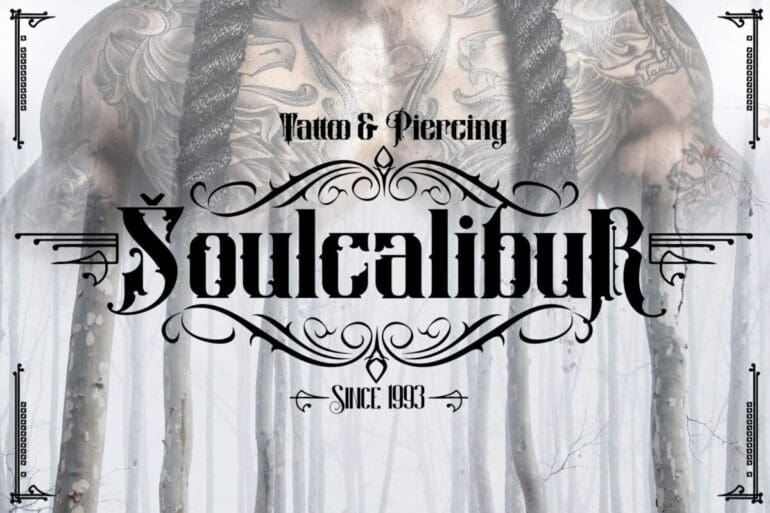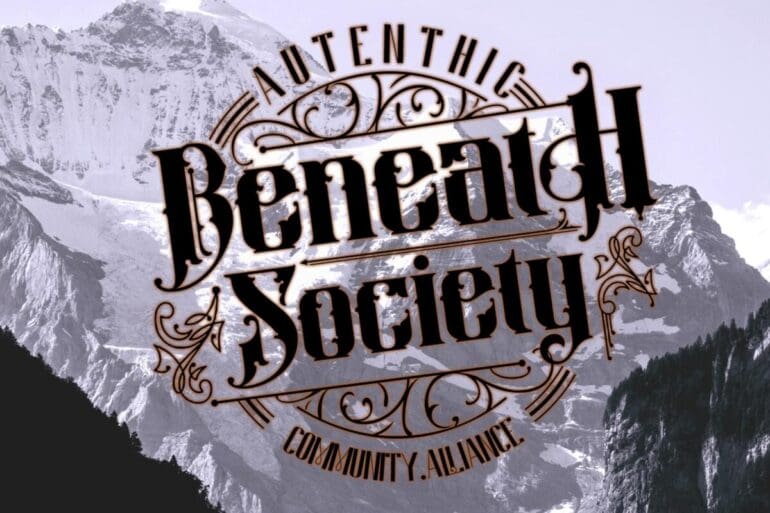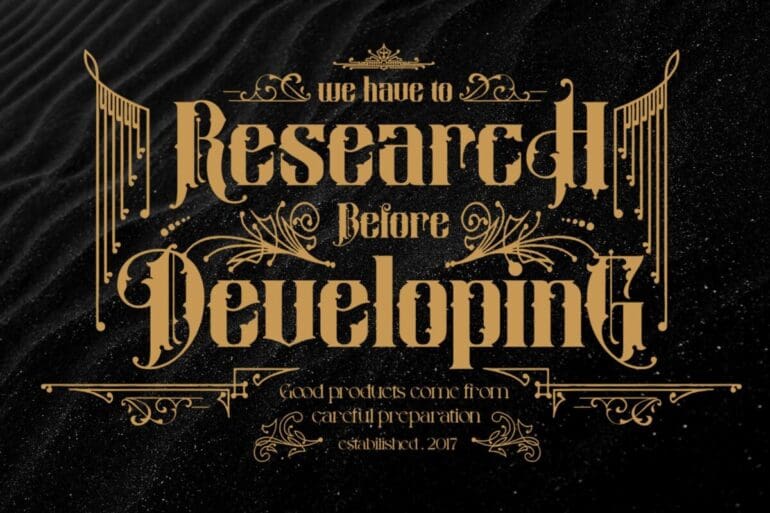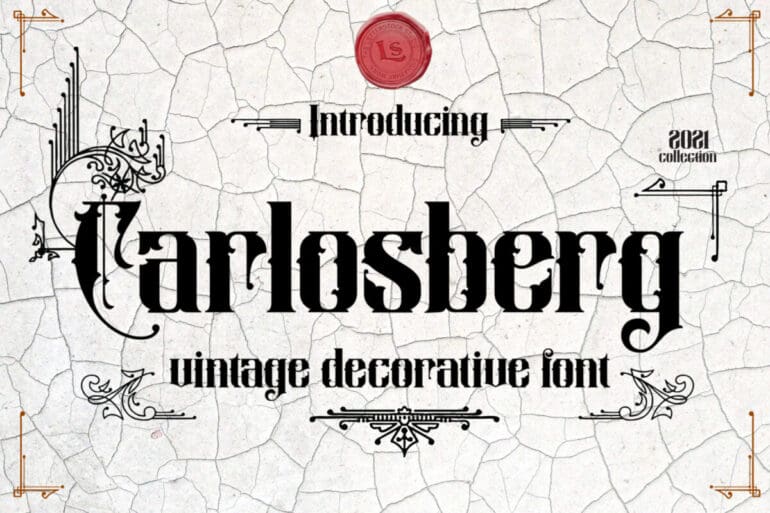
Carlosberg Font
Carlosberg Font. This pair was inspired by the vintage British poster design that I saw on some coffee shop, It was crafted by hand especially to add a natural handmade feeling in its brand identity than I make it clean with pentool.